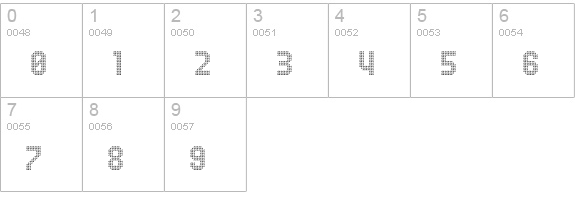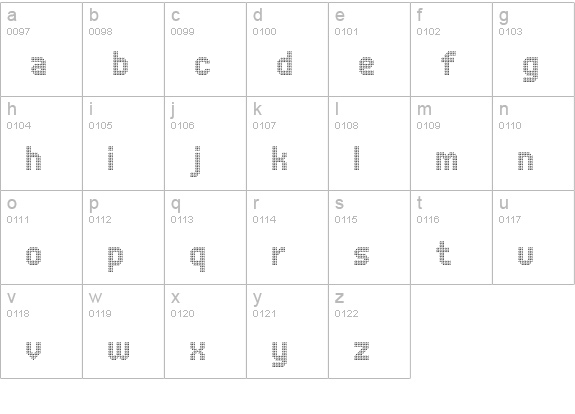
UNDA-Triangle is a captivating and modern font that effortlessly combines elegance with a touch of playfulness. This font is perfect for those seeking to make a bold statement in their designs, whether it be for branding, advertising, or creative projects. With its unique triangular shapes and clean lines, UNDA-Triangle stands out from the crowd, making it an excellent choice for both digital and print media. Its versatility allows it to be used in a variety of contexts, from eye-catching headlines to stylish body text. Not only does UNDA-Triangle exude style and sophistication, but it also offers a practical advantage - it is completely free to download at FontsMarket.com. This means that designers and enthusiasts alike can access this remarkable font without any cost, making it an invaluable resource for those on a budget or looking to experiment with new typefaces. Whether you're an experienced designer or just starting out, UNDA-Triangle is sure to inspire and elevate your creative projects. Its sleek and contemporary design will captivate your audience, leaving a lasting impression. Don't miss out on this incredible opportunity to enhance your designs with the elegance and uniqueness of UNDA-Triangle - download it for free at FontsMarket.com today.